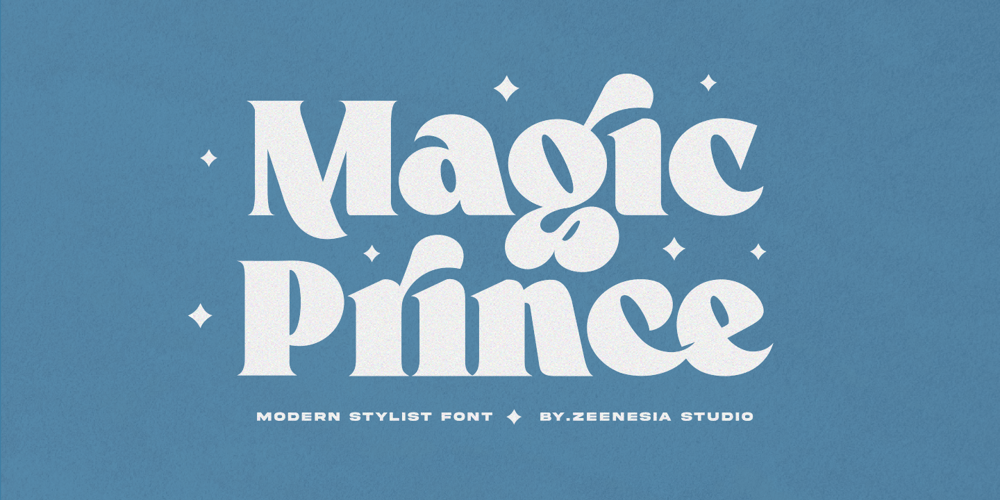
Magic Prince
Magic Prince font
Magic Prince Font Family was designed by Doni Purwoko and published by Zeenesia Studio. Magic Prince contains 1 styles and family package options. Hi everyone, Introducing my special font Magic Prince is a modern stylist serif font. Magic Prince inspired from Magic Romance typeface, have unique style and elegant looking, is well-suited for advertising, branding, logotypes, packaging, titles, headlines and editorial design. I created more much alternates variant and much natural ligatures to make this font very classy and look so beauty. Magic Prince was built with open type features make your project will be perfect.